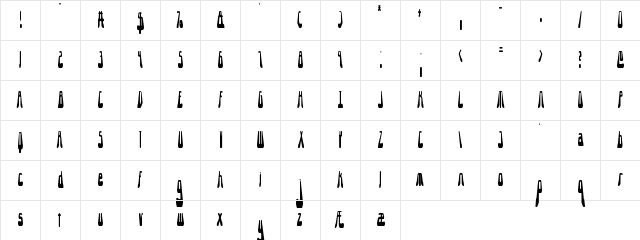
10.15 Saturday Night R BRK Regular
Foundry: ￿IGMA FONTS
Designer: ￿IGMA FONTS - Brian Kent
10.15 Saturday Night R BRK Family
Design Context for 10.15 Saturday Night R BRK
10.15 Saturday Night R BRK is a composed and adaptable typeface that performs quietly and consistently across a wide range of design contexts.
Who designed the 10.15 Saturday Night R BRK Regular font?